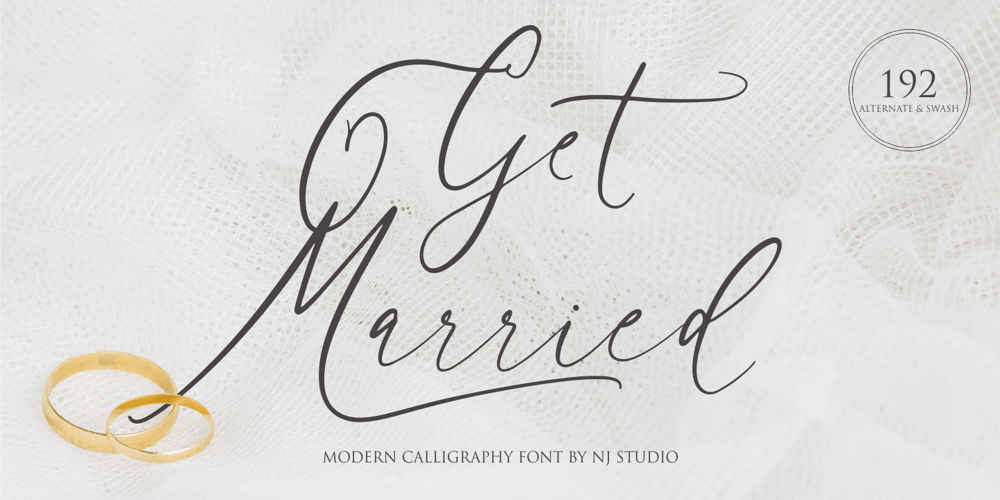
Get Married
Get Married font
Get Married Font Family was designed by Siti Nurjanah and published by NJ Studio. Get Married contains 1 styles and family package options. Hi…Thank for your visit :)Get Married a modern calligraphy font with 192 alternate, swash and ligature. It features ligatures characters that will take your projects to the next level!This font is PUA code which means you can easily access all the glyphs that are full of natural! It also features many special features including glyphs. font designs that are made for various vector designs, printing such as digital wedding blogs, online shops, social media, while printing can be used in the field of product clothing, accessories, bags, pins, logos, business cards, watermarks and many others …so it can make your product look natural and attractive, and also Multilingual support!!!Happy design …